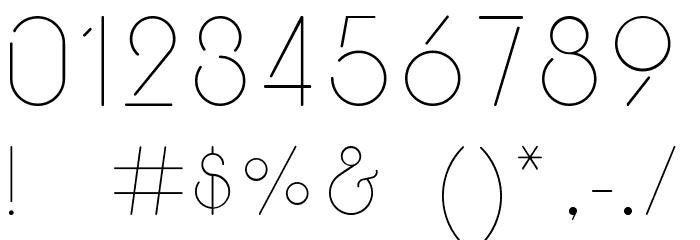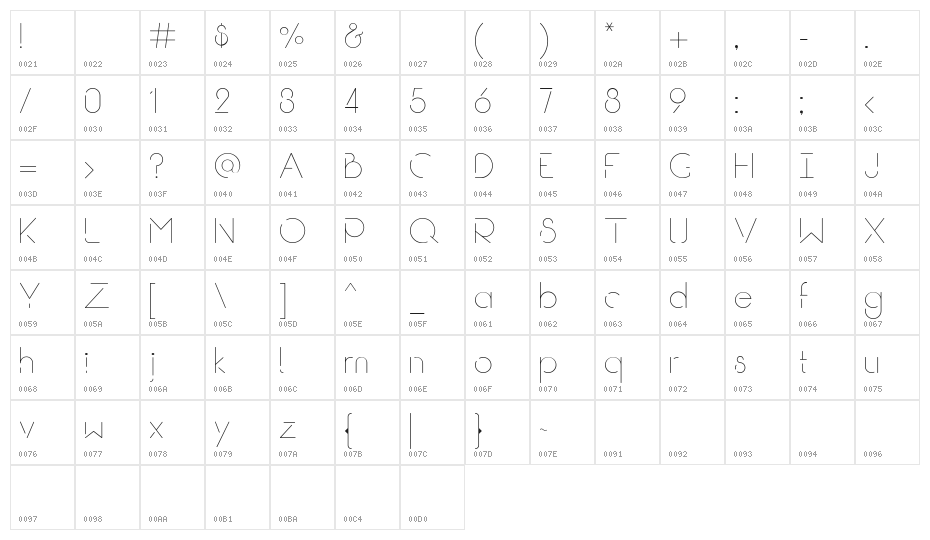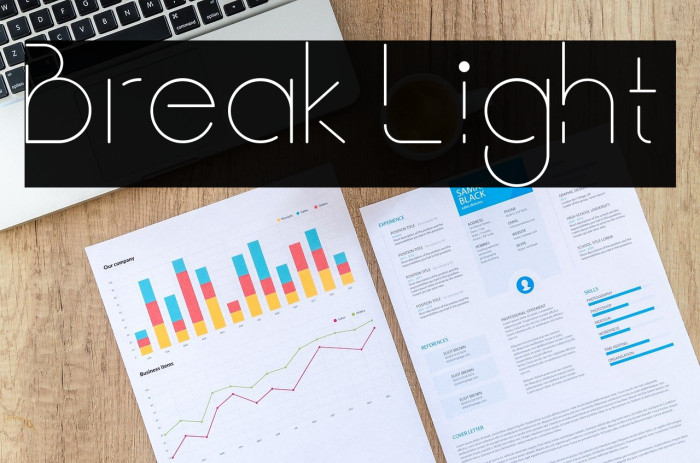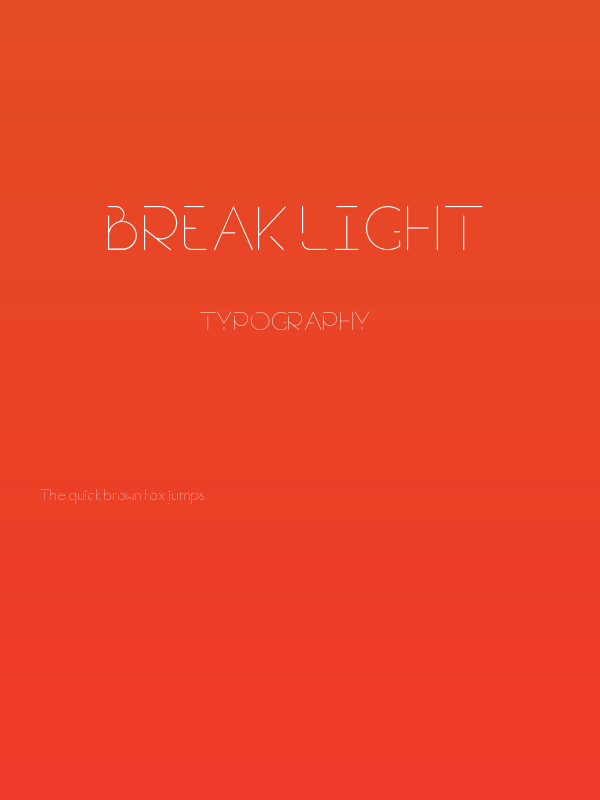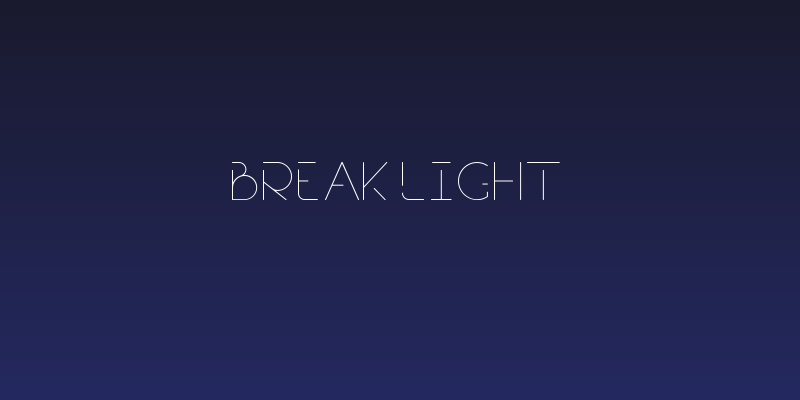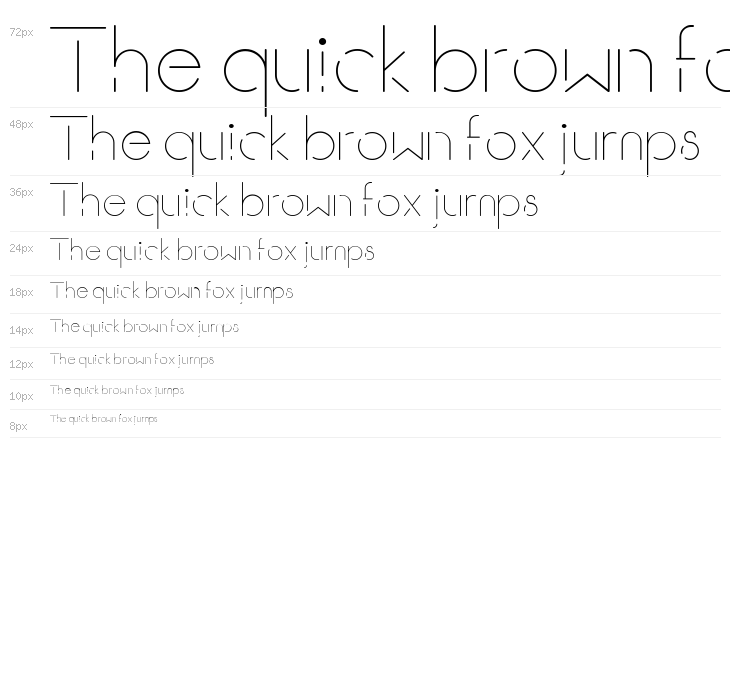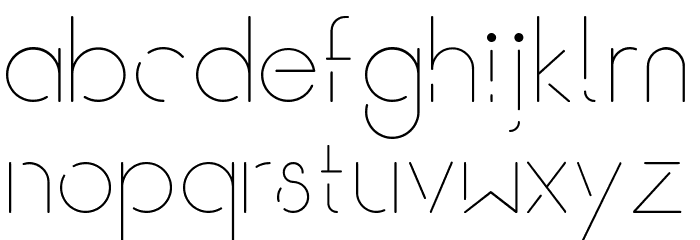
Break Light Font
Break Light Description
This font features a modern and minimalist design with a geometric structure. The characters are composed of clean, straight lines and subtle curves, creating a sleek and contemporary appearance. The uppercase letters are distinct with angular cuts, while the lowercase letters maintain a consistent roundness. The numerals are uniform and align well with the overall style, providing a cohesive look. The special characters are thoughtfully designed to match the font's aesthetic, making it versatile for various applications. The thin strokes and open spaces contribute to a light and airy feel, enhancing readability and elegance.
| Proposed Projects | Ideal for branding, modern web design, tech-related projects, and minimalist posters. |